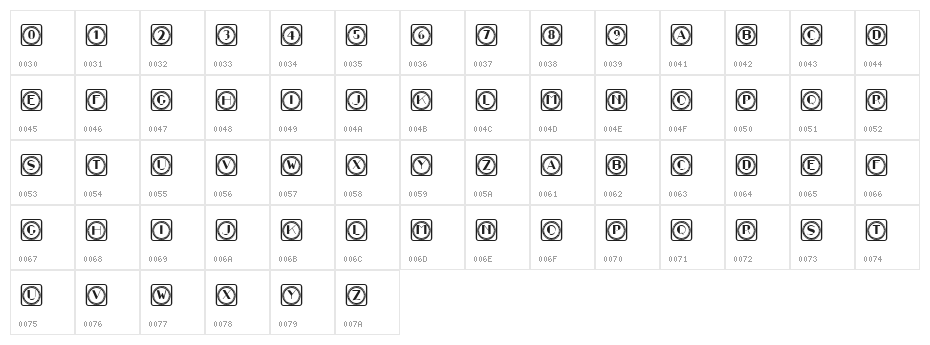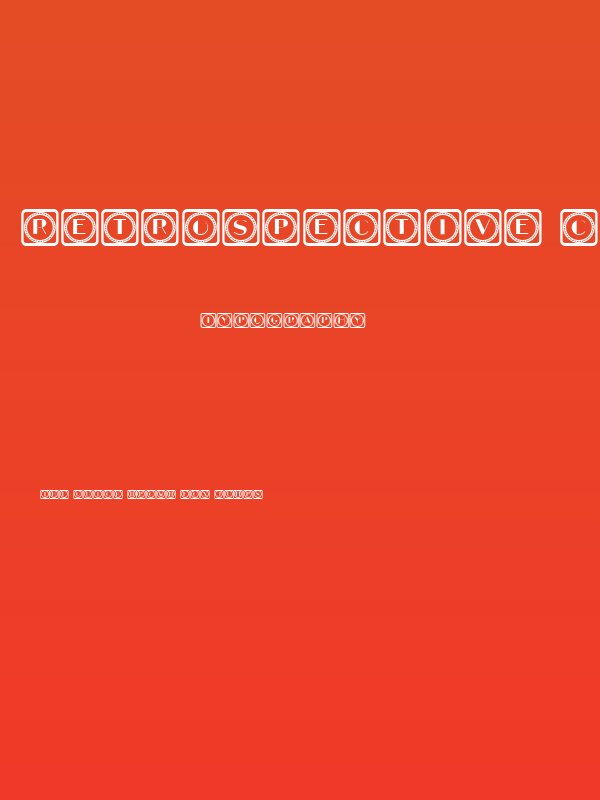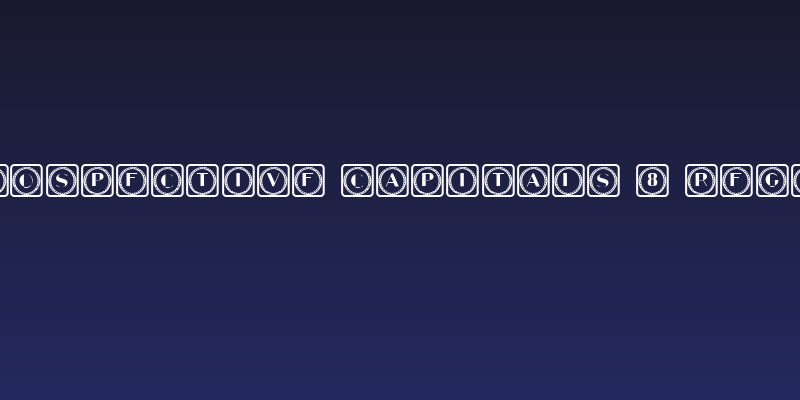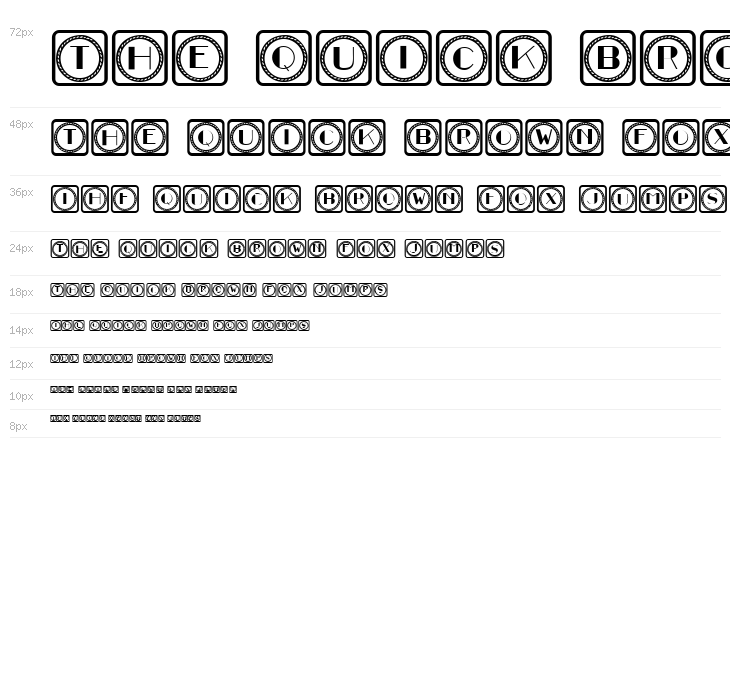
Retrospective Capitals 8 Regular Font
Retrospective Capitals 8 Regular Description
This font features a unique design where each character is enclosed within a rounded square, giving it a distinctive, retro appearance. The letters are bold and capitalized, with a consistent thickness throughout, creating a uniform look. The characters are centered within their squares, which adds to the overall symmetry and balance of the font. The style is reminiscent of vintage typewriter keys, making it ideal for projects that require a nostalgic or classic touch. The enclosed design also adds a decorative element, making the font suitable for display purposes.
| Use Case | Headlines, Logos, Decorative elements |
| Proposed Projects | Ideal for vintage-themed designs, retro posters, branding, and decorative signage. |